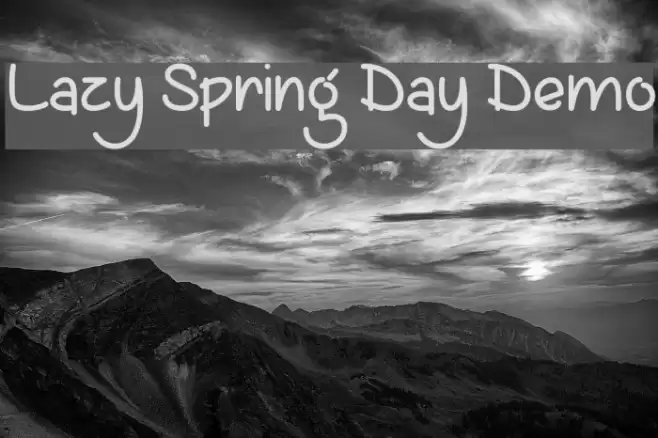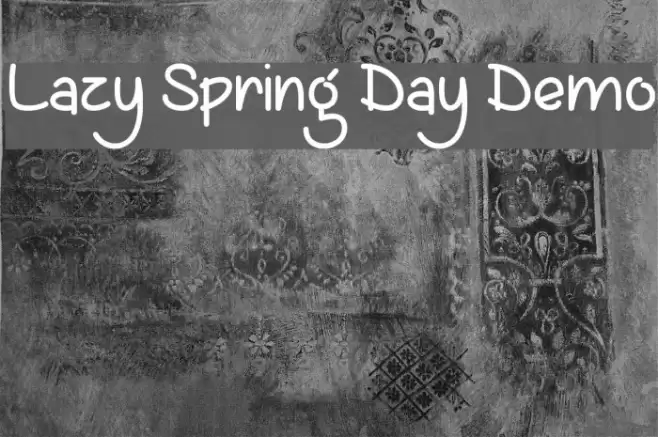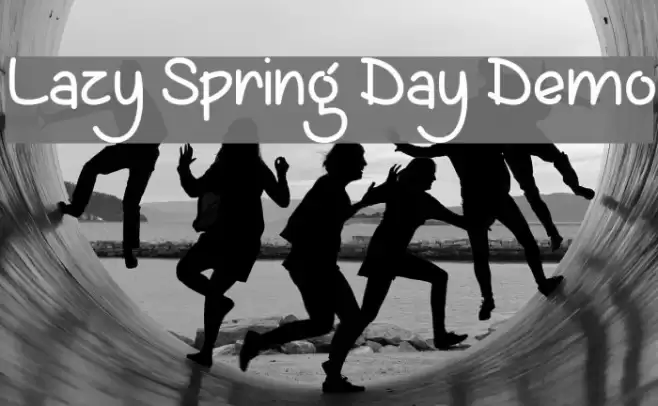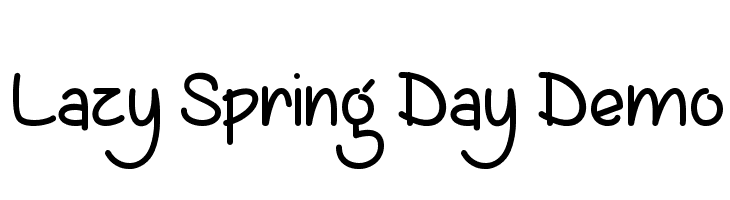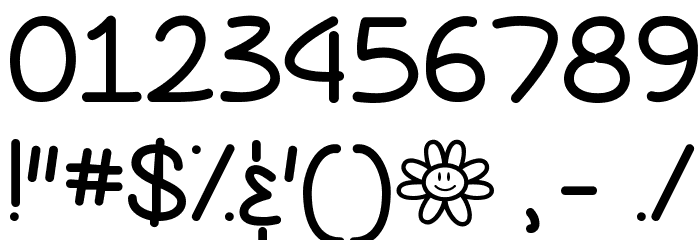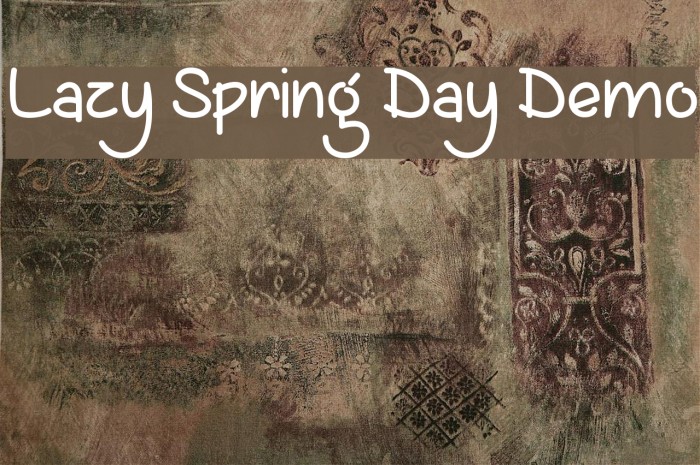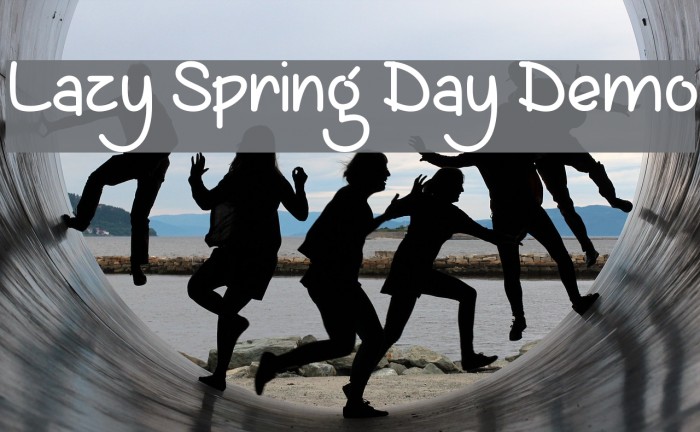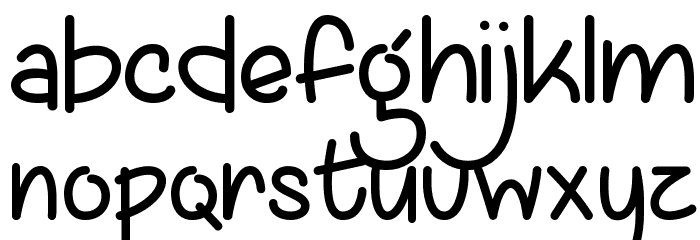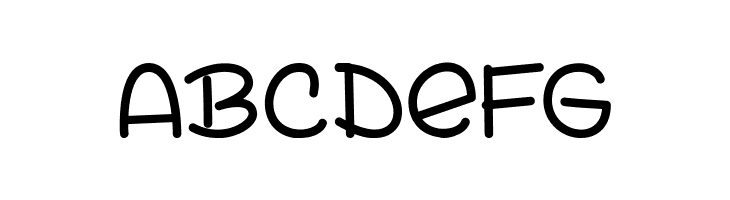
Lazy Spring Day Demo Font
Lazy Spring Day Demo Description
This playful and whimsical font features a handwritten style with a casual and friendly appearance. The characters are rounded and slightly irregular, giving it a charming and approachable feel. The uppercase and lowercase letters maintain a consistent flow, with a slight tilt that adds to its informal nature. The numerals and special characters complement the overall style, making it suitable for creative and fun projects. Its unique personality makes it stand out, while still being legible and versatile.
A playful, handwritten font with a casual and friendly style from Handwritten fonts.
- Proposed Projects: Ideal for children's books, greeting cards, playful branding, and casual invitations.
- Overall Style: Casual, Playful
- Use Case: Headlines, Informal text, Creative projects